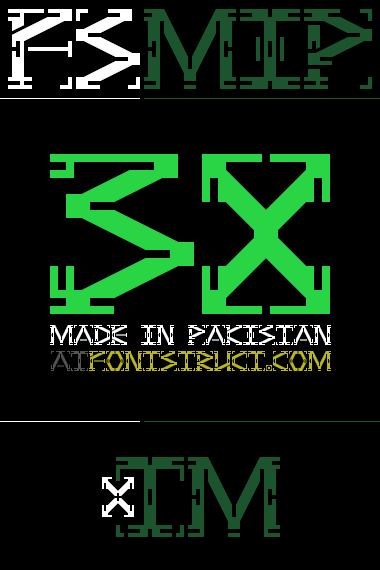
fs MIP
Nice work. 10/10
Awesome and surprising! 20/10!
A very dynamic (almost electric) design - really exciting!
Love how the negative space links up some characters!
wait you are from pakistan???
the sample says 'made in pakistan'